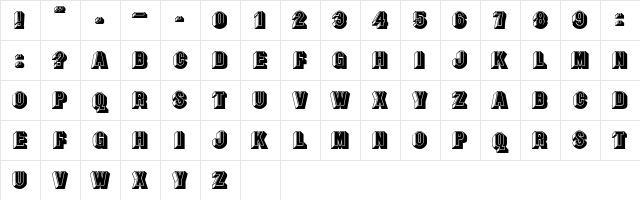
BangstonfatsPlain-Normal Regular
Design Context for BangstonfatsPlain-Normal
BangstonfatsPlain-Normal is a composed and adaptable typeface that performs quietly and consistently across a wide range of design contexts.
Pro Tip: Use BangstonfatsPlain-Normal in both headline and body roles to test its range before committing to a single application.